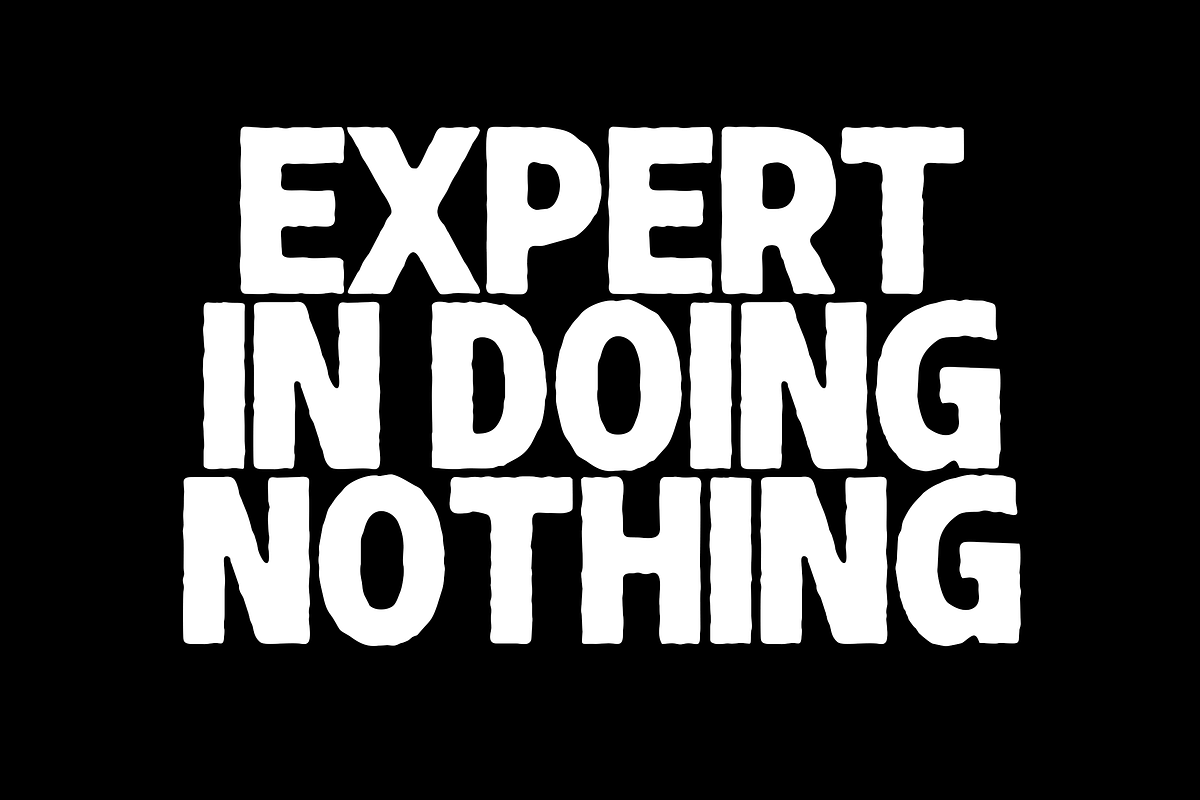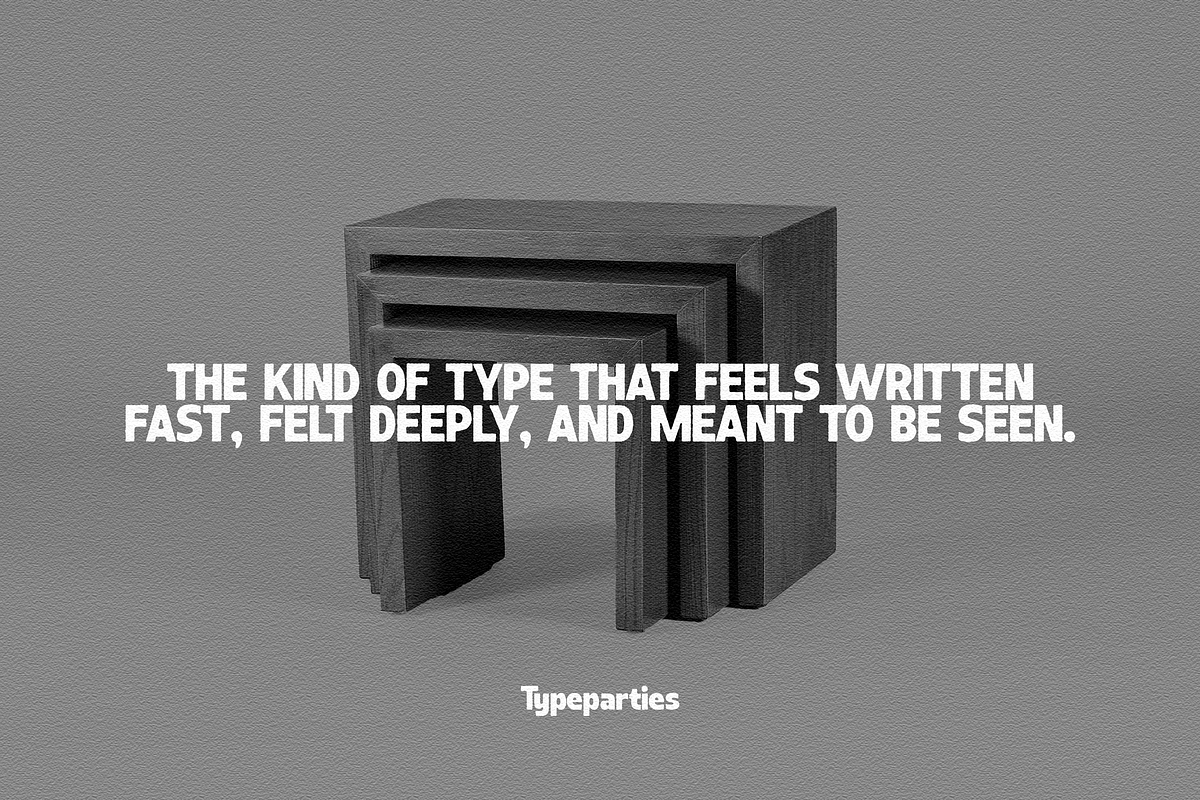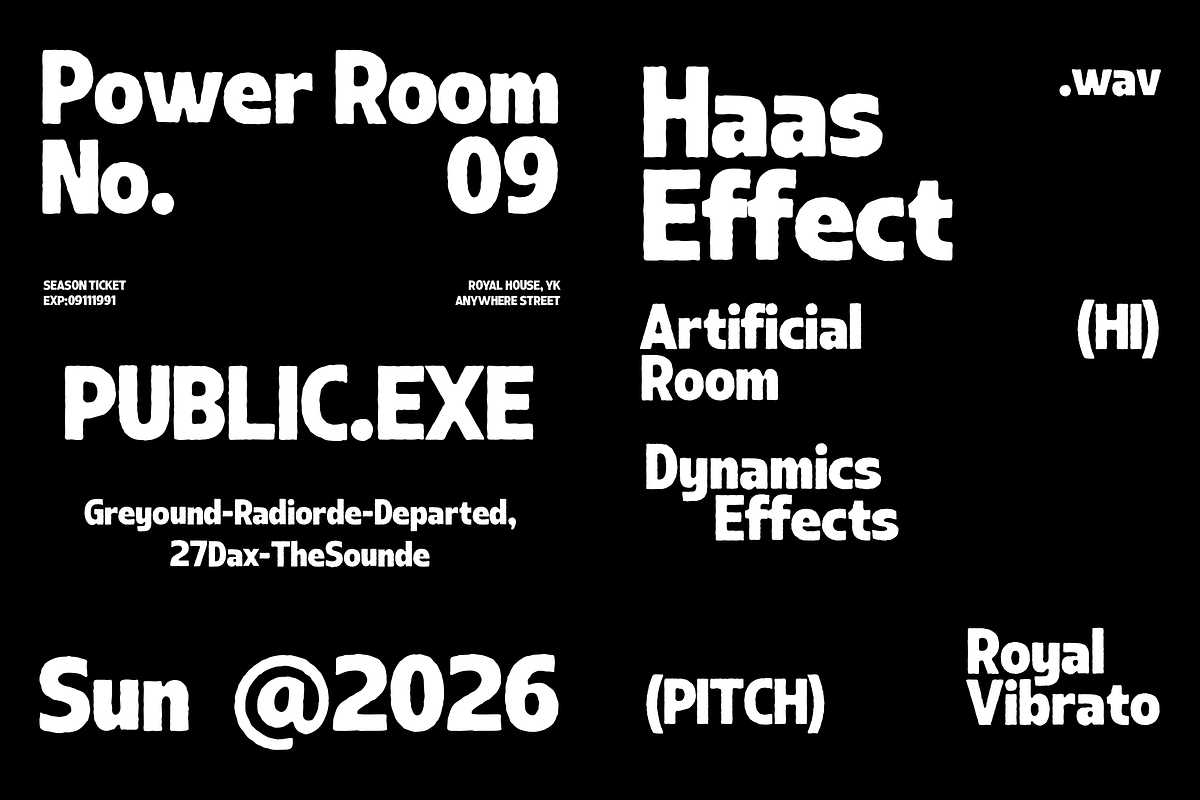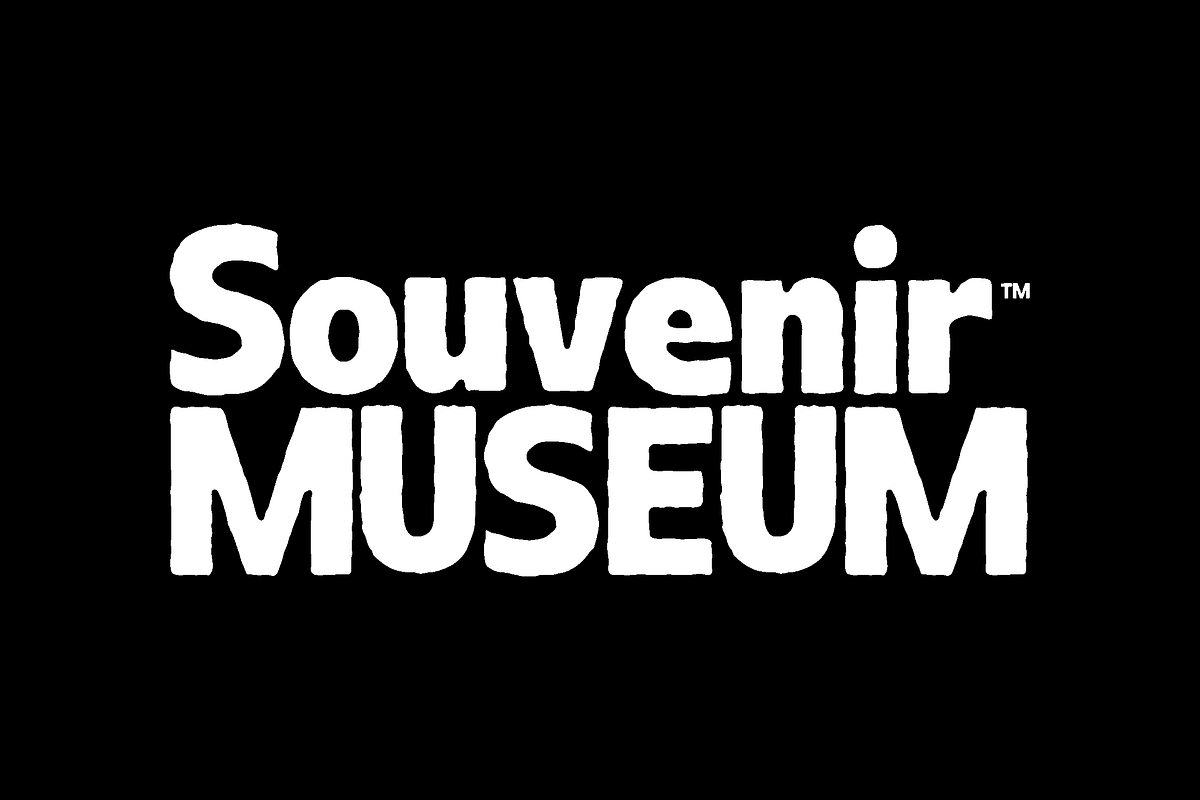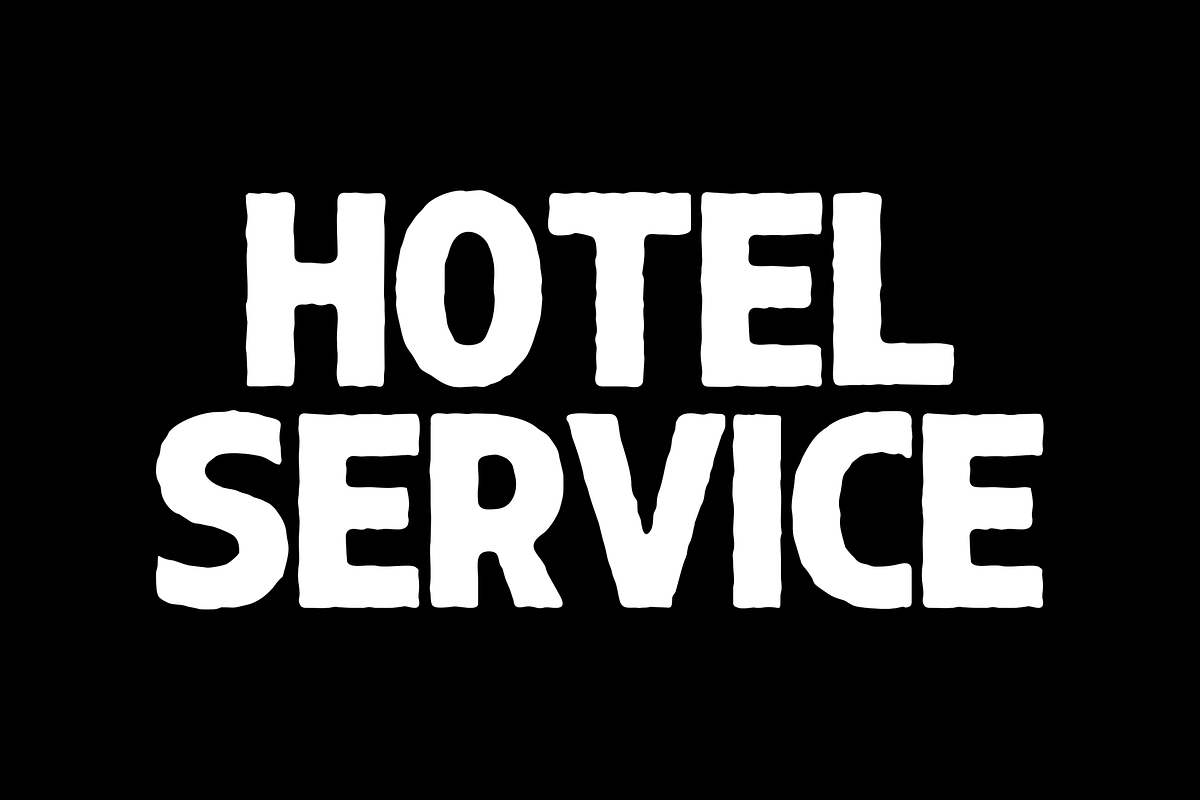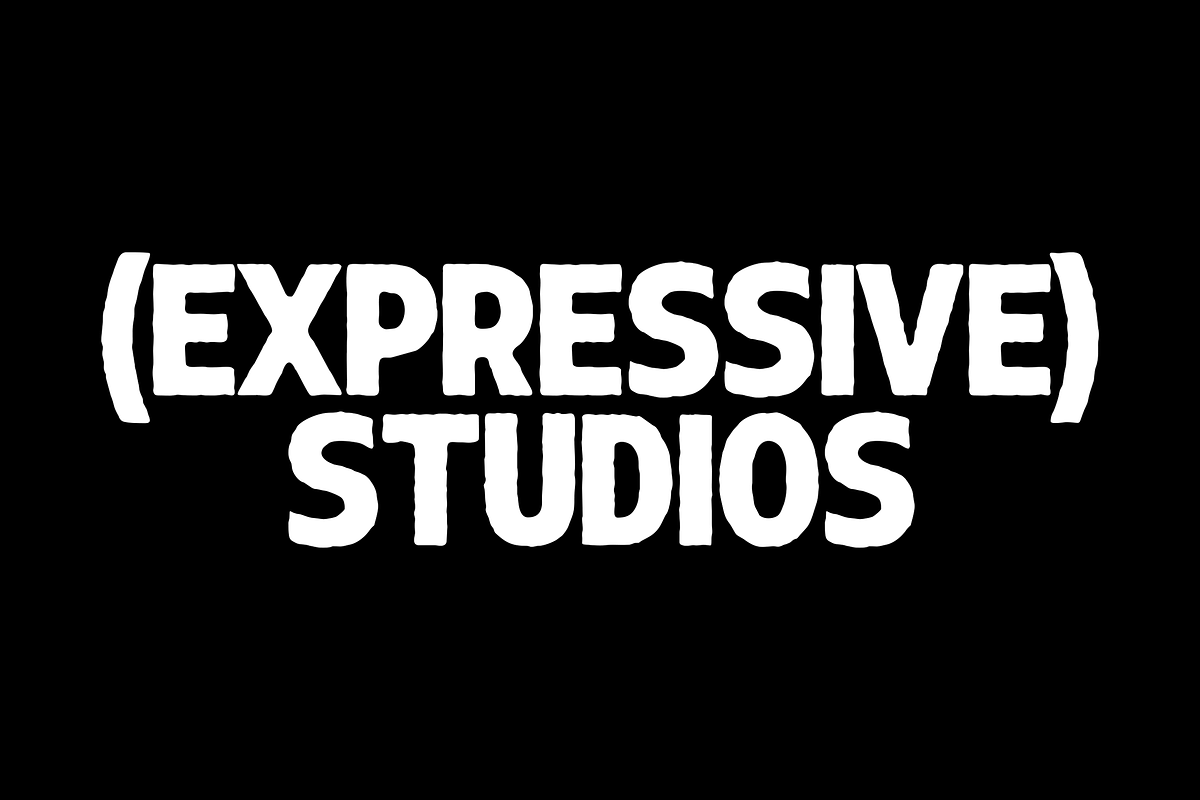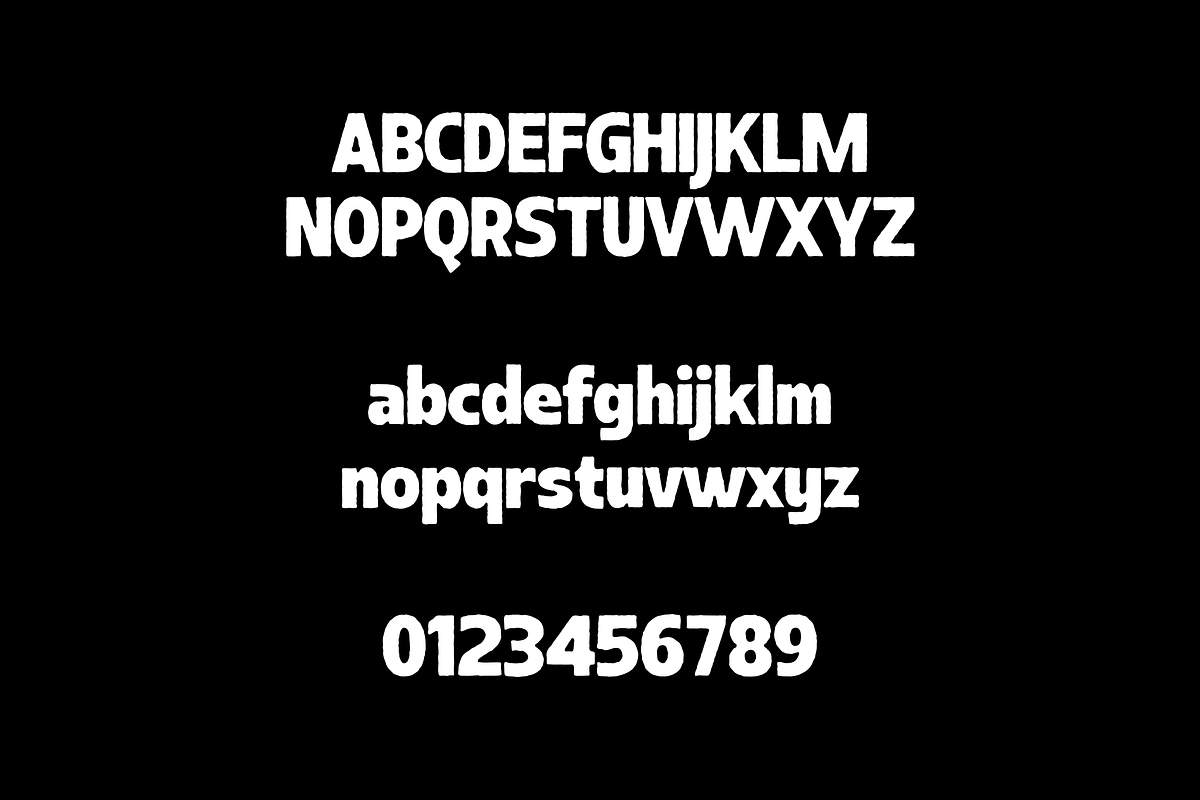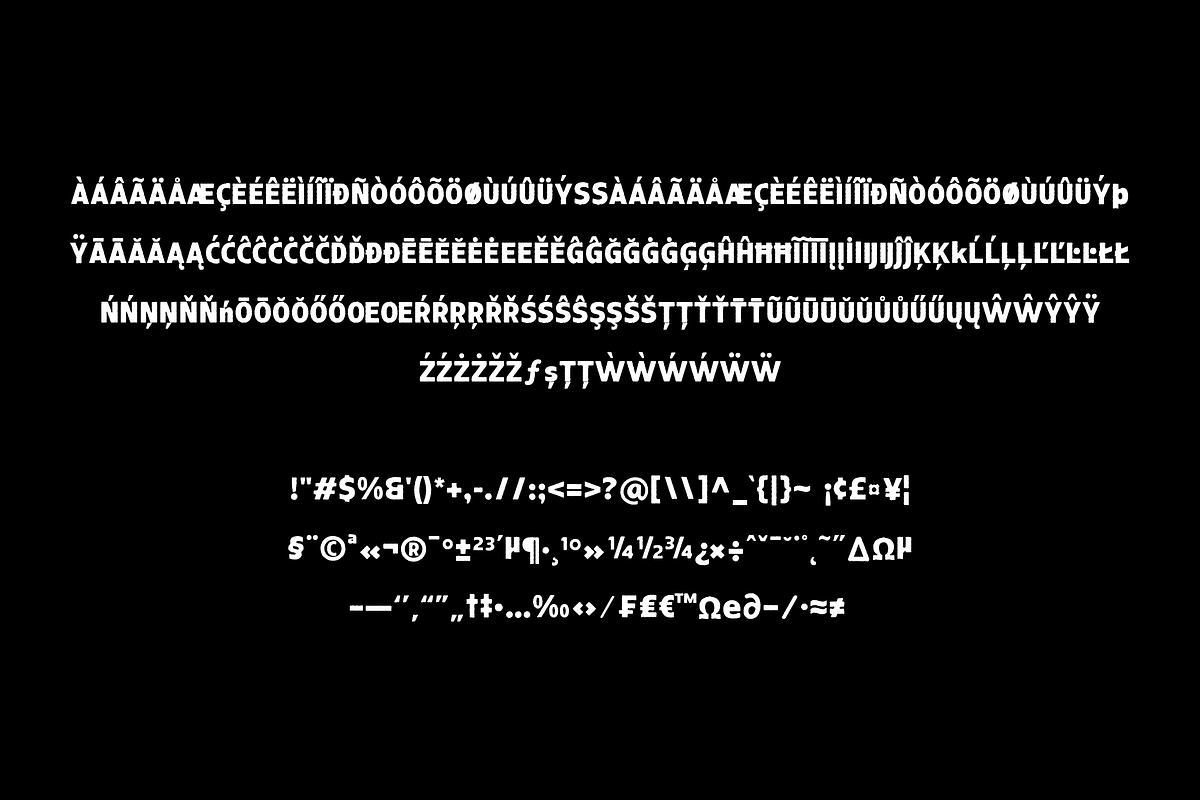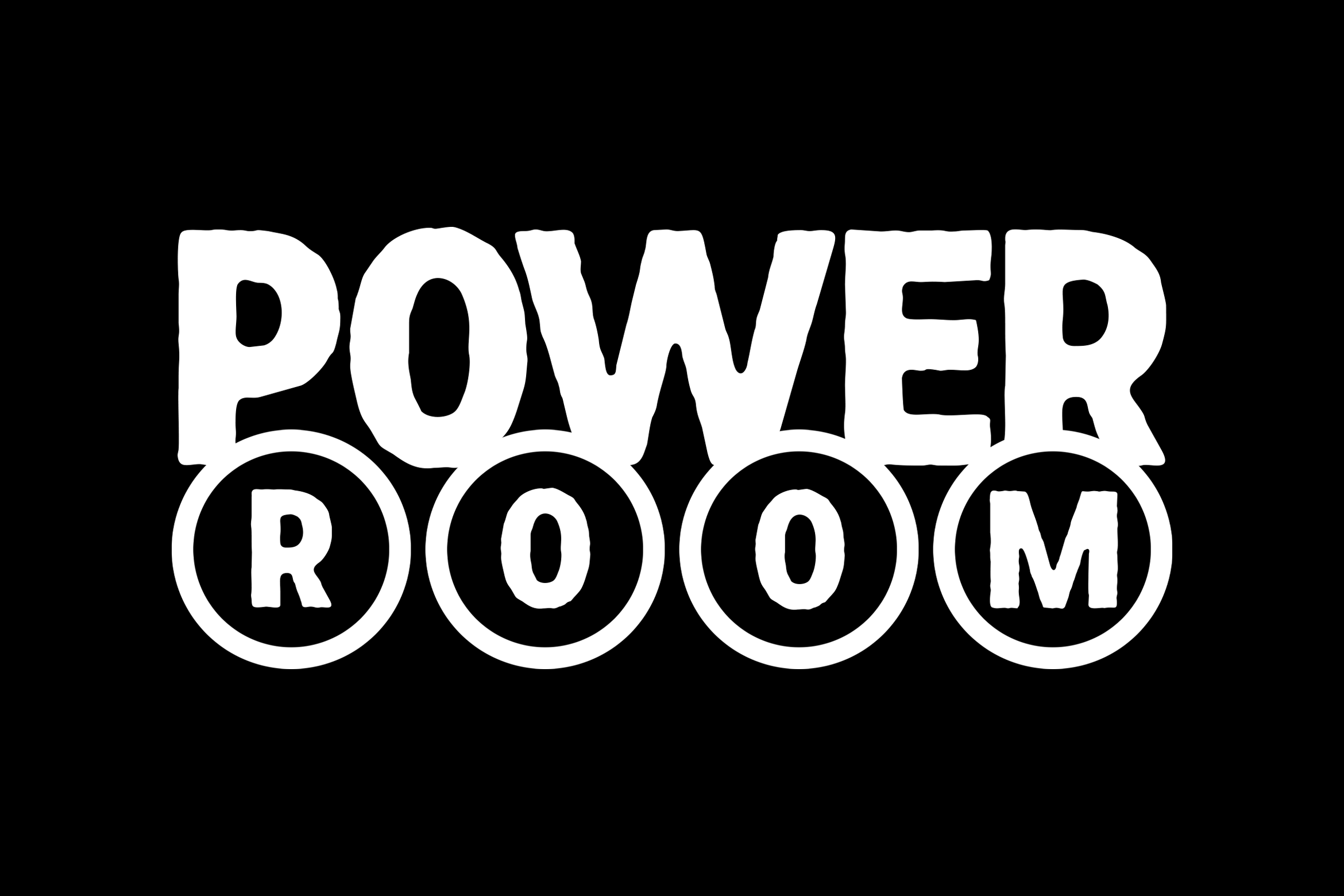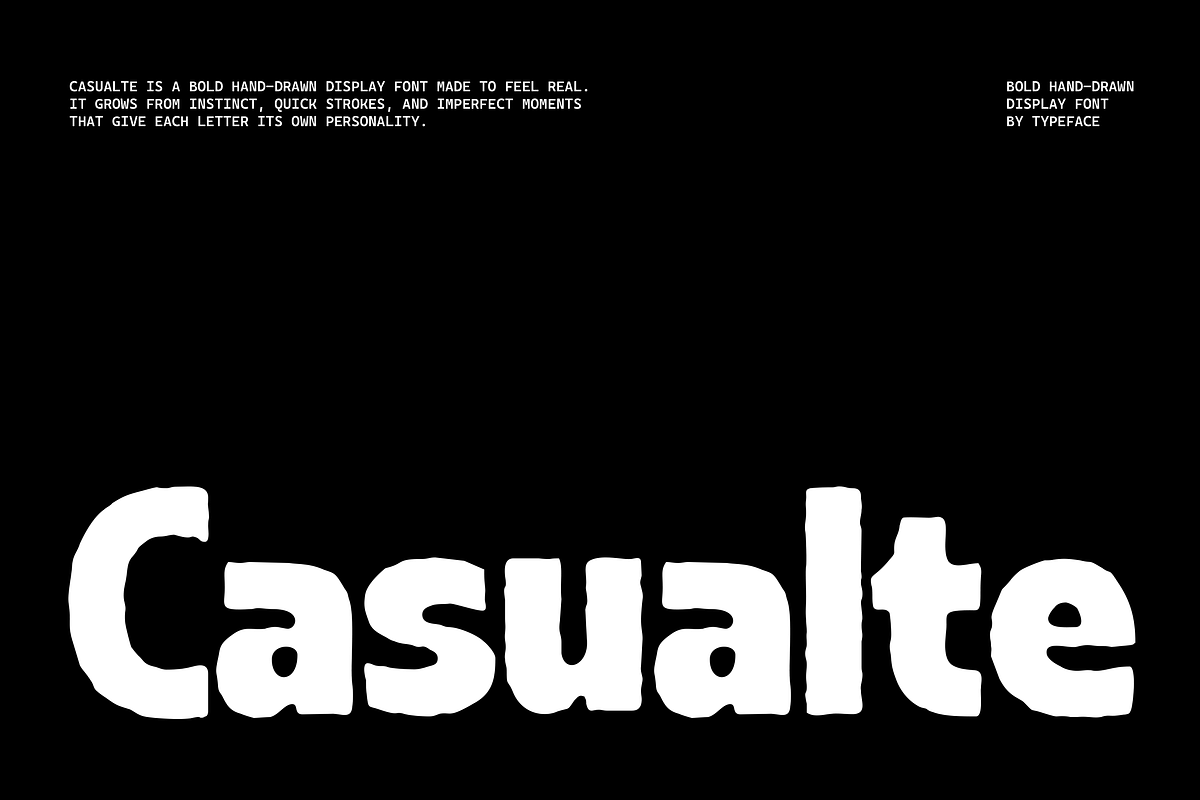
Casualte - Expressive Branding Font
Casualte is a hand-drawn display typeface designed to bring clarity and character into modern visual communication. Its balanced letterforms and natural rhythm create a confident presence while maintaining strong readability.
Created for branding, headlines, posters, and packaging, Casualte adds personality without overpowering the design. The font offers an expressive yet controlled tone, making it suitable for creative brands that value authenticity and consistency.
Casualte delivers a human touch through thoughtful imperfection, supporting designs that aim to feel approachable, modern, and intentional.